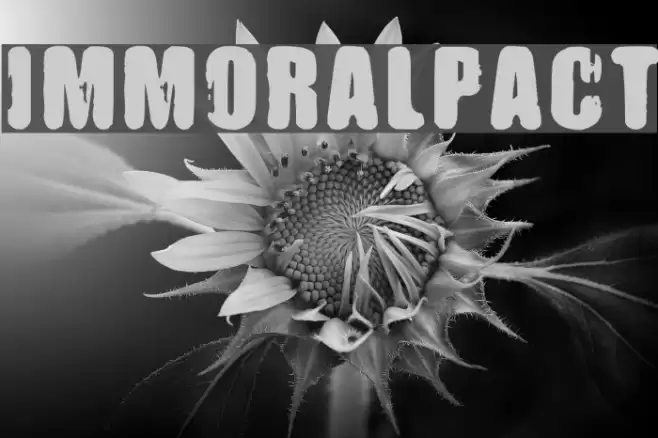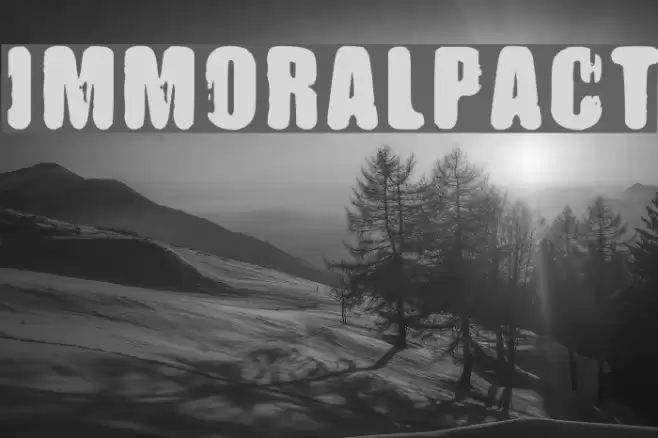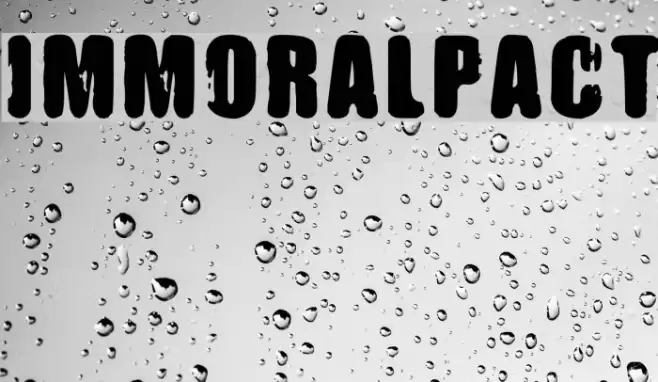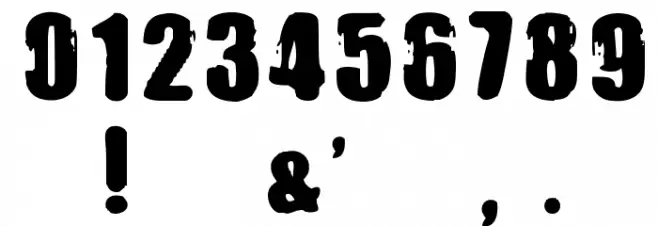
IMMORAL PACT Font
IMMORAL PACT Description
This font features a bold and distressed style, characterized by its rough, textured edges that give it a grungy and worn appearance. The uppercase and lowercase letters maintain a consistent weight, providing a strong visual impact. The numerals and special characters follow the same distressed theme, ensuring uniformity across all glyphs. Its unique design makes it stand out, perfect for projects that require a touch of edginess and character. The font's boldness and texture make it suitable for eye-catching headlines and titles.
A bold, distressed font with a grungy, textured appearance from Distorted Eroded fonts.
- Proposed Projects: Ideal for music album covers, event posters, urban-themed designs, and any project needing a bold, edgy look.
- Overall Style: Grunge, Edgy
- Use Case: Headlines, Posters, Album Covers